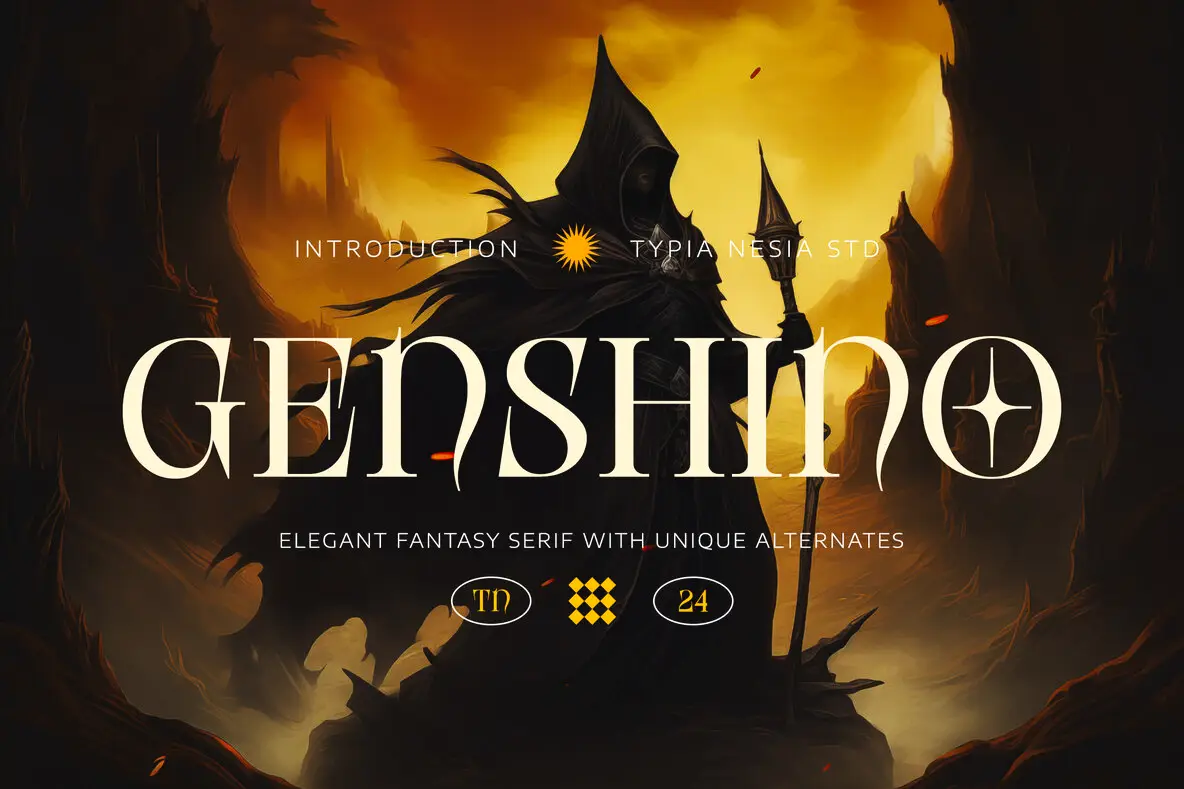
Genshino Font
expand_font Genshino Font Discover Genshino: an elegant serif font with whimsical flair. Perfect for branding, editorial, and more. Elegant,Fantasy,Game,Luxury,Aesthetic,Display,Ligature,Logo,Decorative,High Contrast,Headline,Serif Explore Exceptional Fonts for Digital and Traditional Media Fontpath offers a large variety of fonts for every designer, all at affordable prices and in multiple formats. Browse our best in class fonts today for all your creative needs, you can find everything you need right here at our site! Fonts,Web Fonts,sans,sans serif,retro,title,FontPath 20140312040223 Fontpath offers 200,000+ of the most professional fonts found online, start downloading today! Real-Time Font Discovery at Fontpath